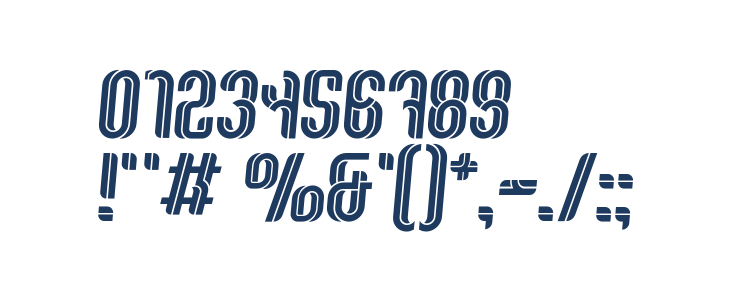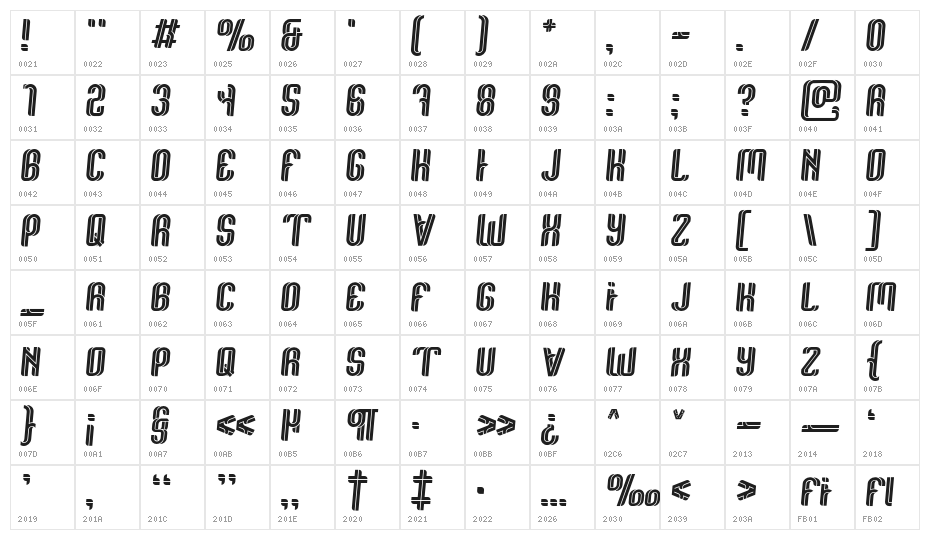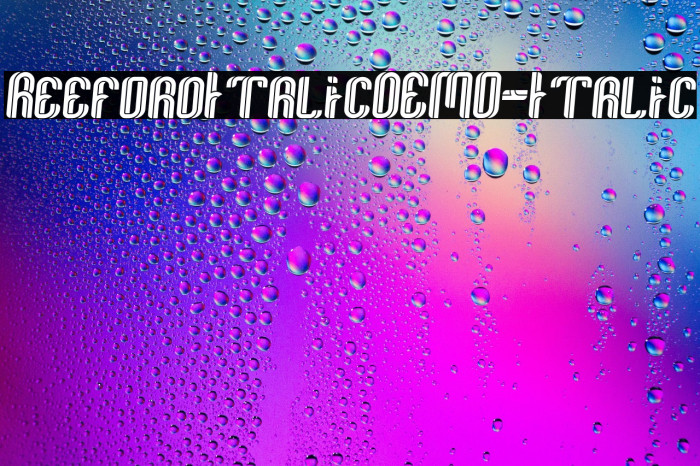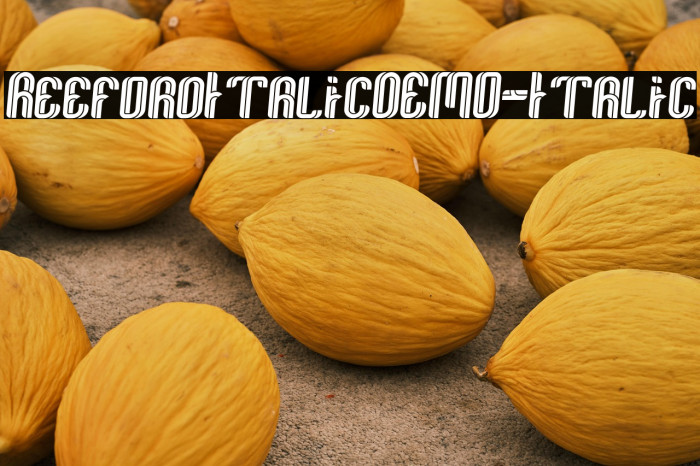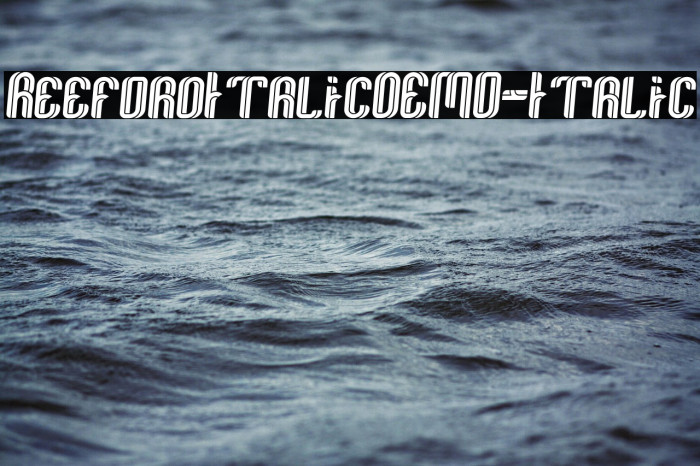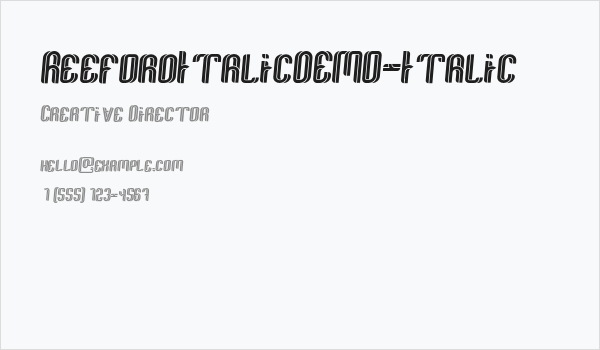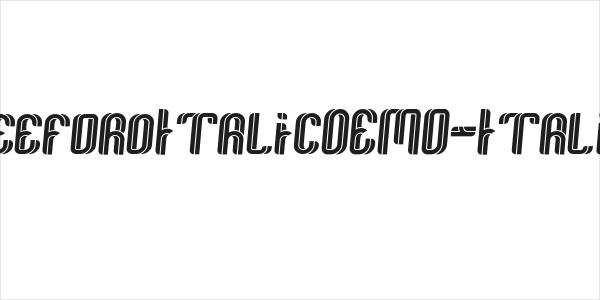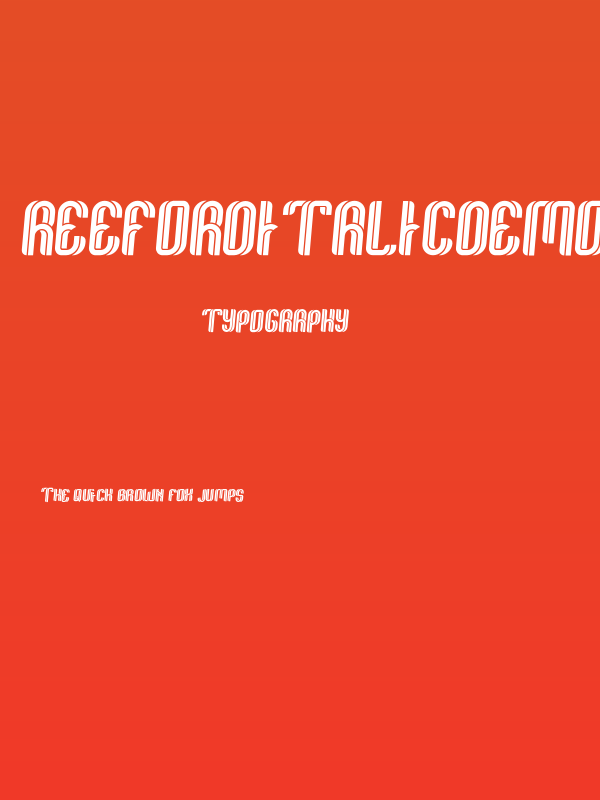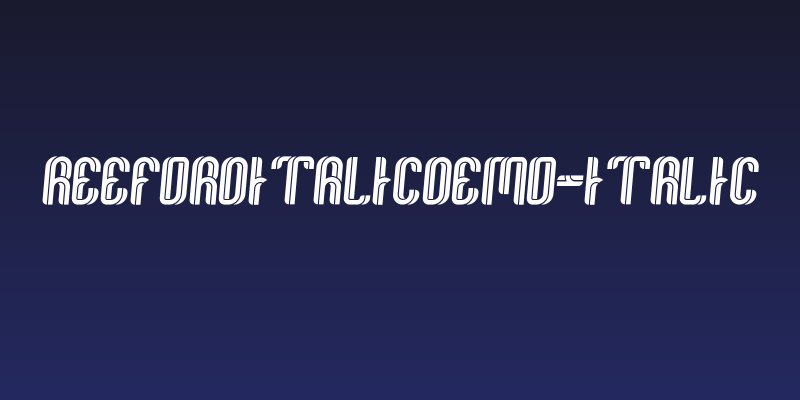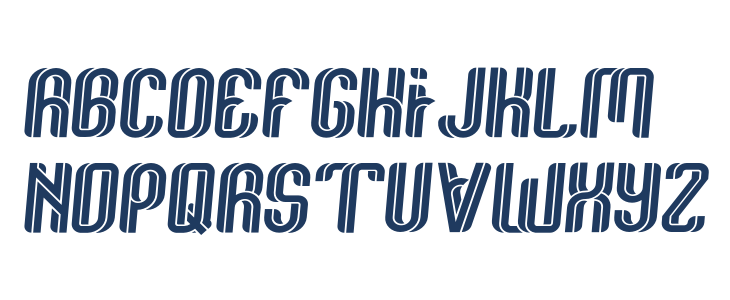
ReefordItalicDEMO-Italic Font
ReefordItalicDEMO-Italic Description
This font features a bold and dynamic style with a strong italic slant, giving it a sense of movement and energy. The characters are designed with a unique blend of thick and thin strokes, creating a high contrast that enhances readability while maintaining a decorative flair. The uppercase and lowercase letters share a consistent design language, with rounded edges and a slightly condensed form that adds to its modern appeal. The numbers and special characters are equally stylized, making them suitable for a variety of creative applications.